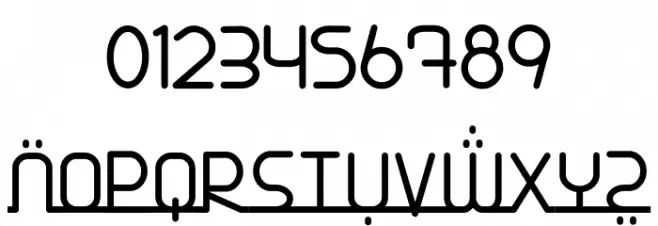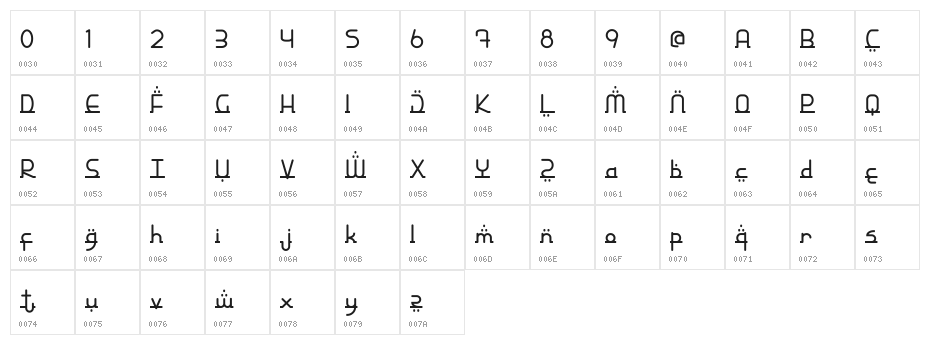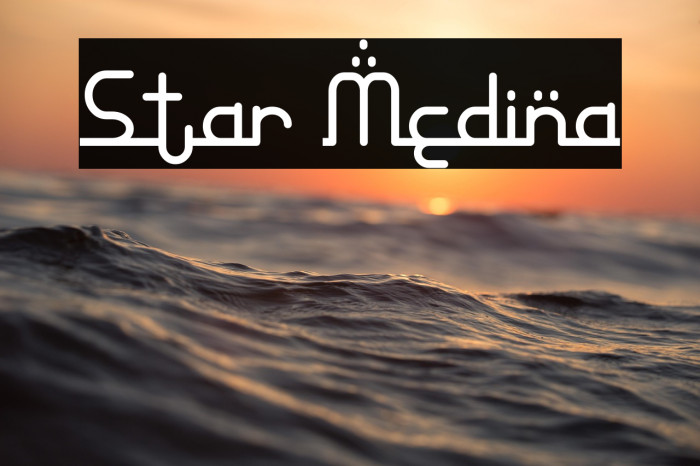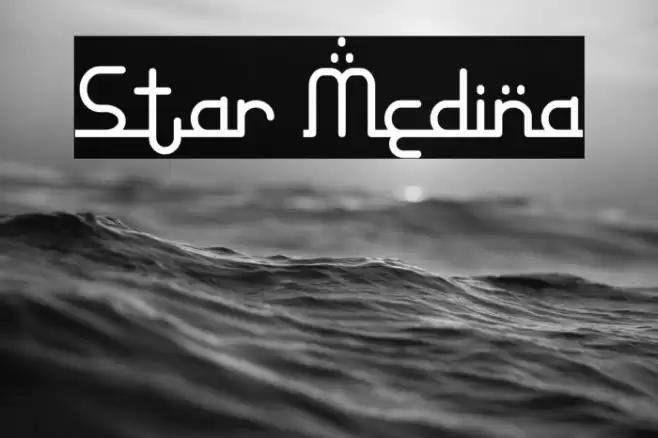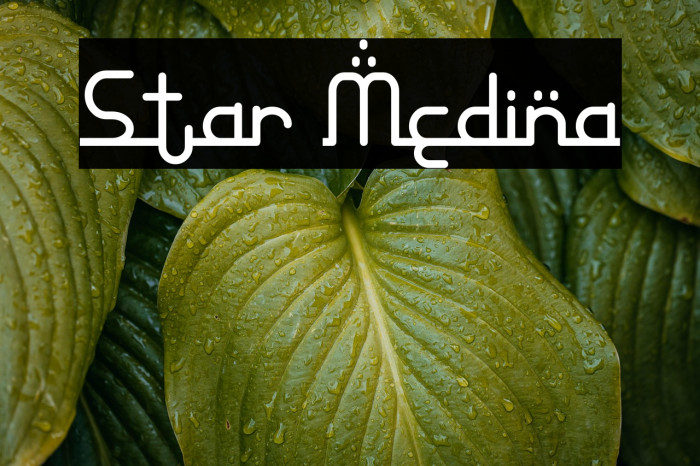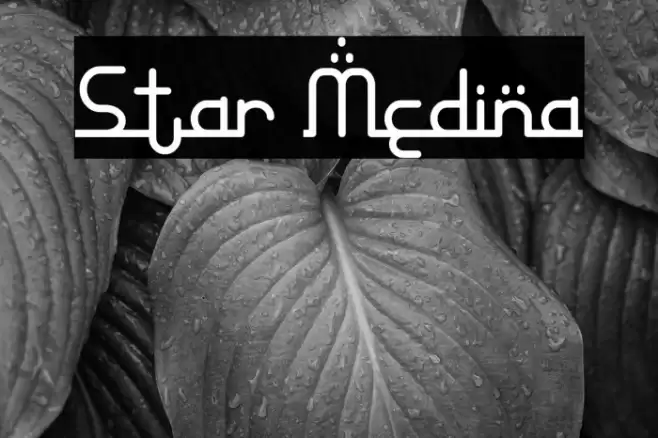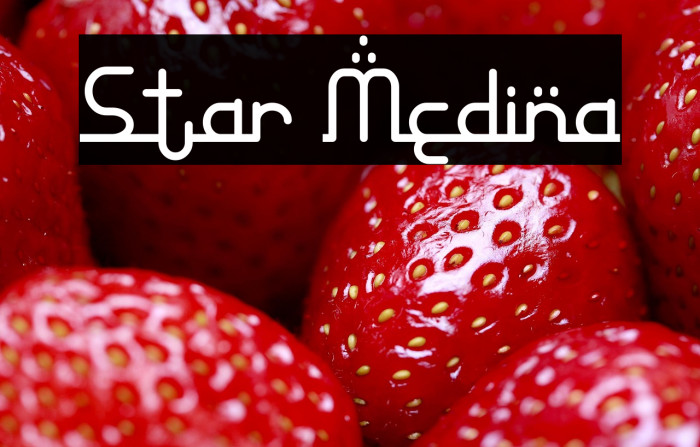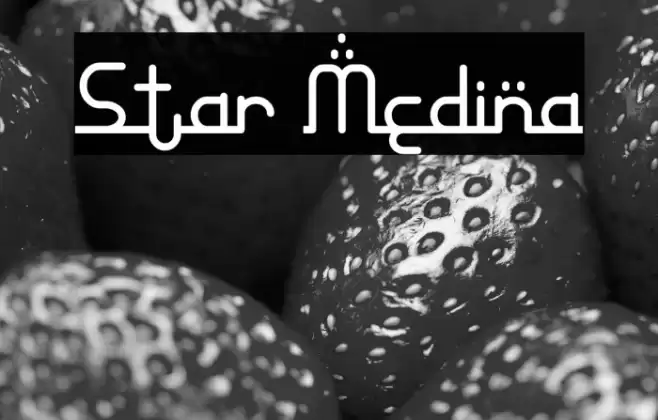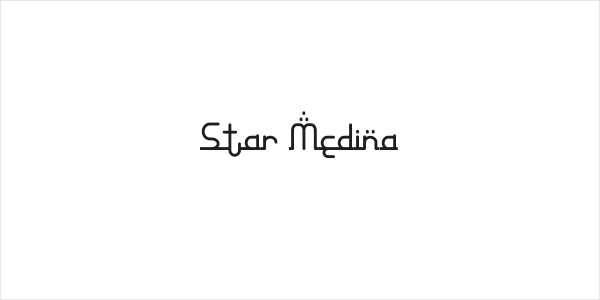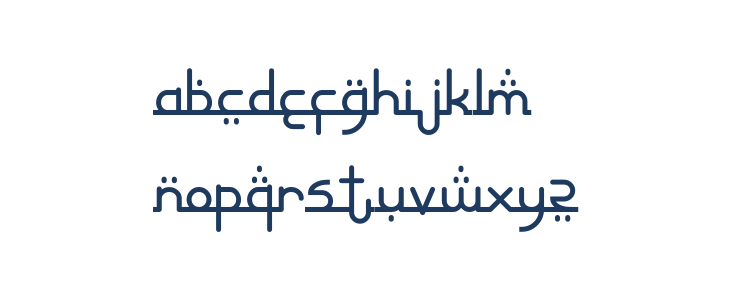
Star Medina Font
Star Medina Description
This font features a unique and modern design with a geometric and linear style. The characters are constructed with consistent line thickness, giving it a uniform appearance. Notable are the decorative dots above certain letters, adding a distinct flair. The uppercase and lowercase letters maintain a similar structure, enhancing readability while preserving the font's artistic elements. The numerals are equally stylized, matching the overall aesthetic. This font's clean lines and symmetrical design make it suitable for contemporary projects that require a touch of creativity.